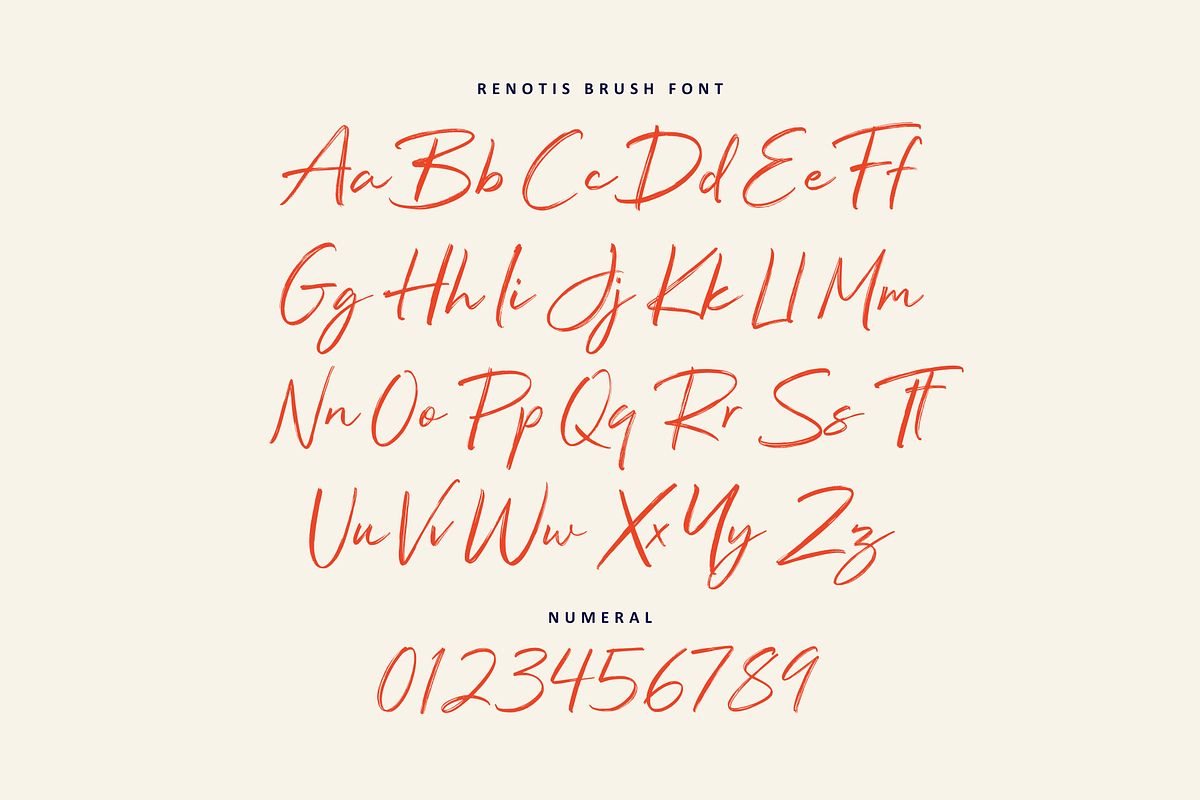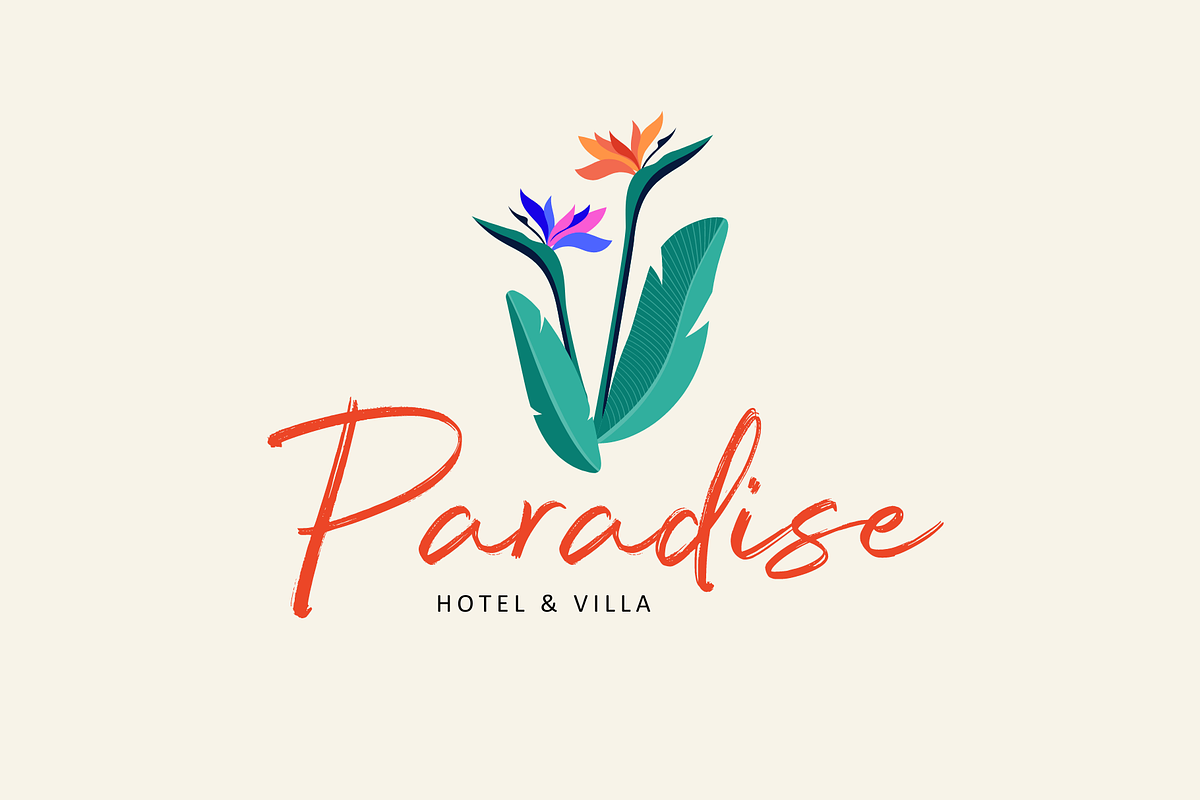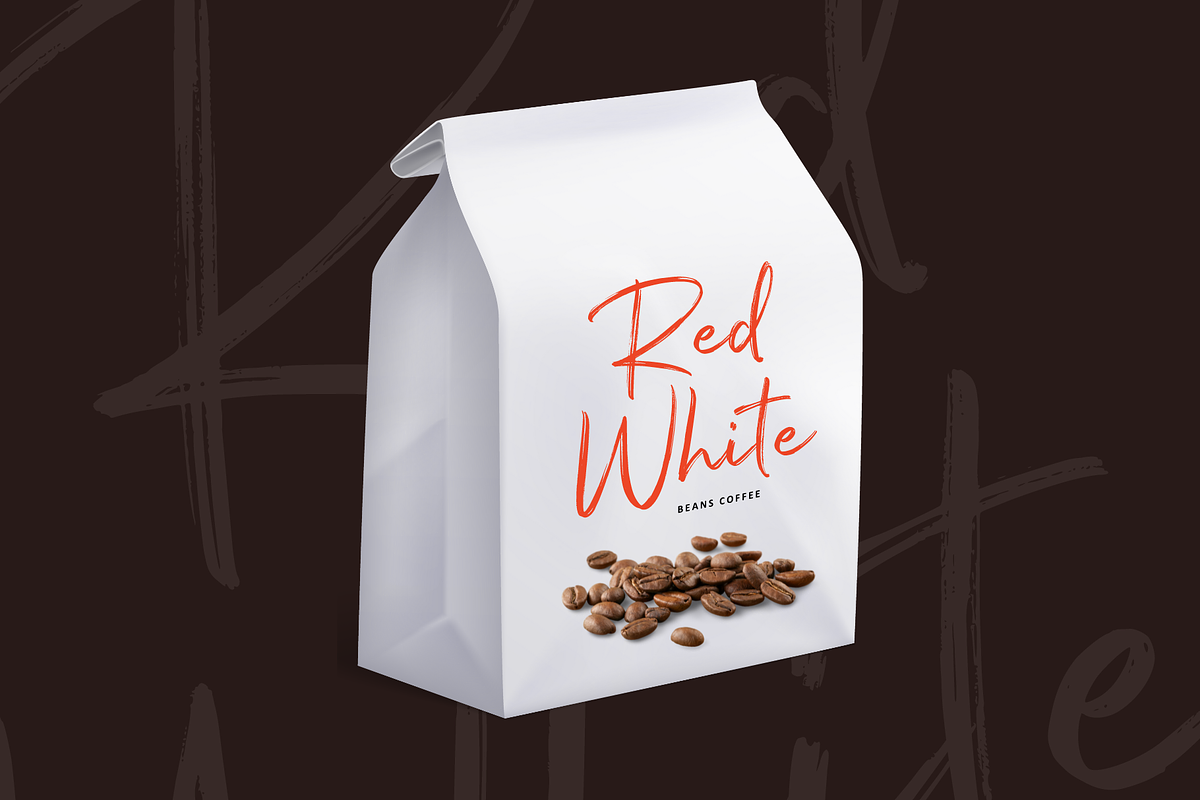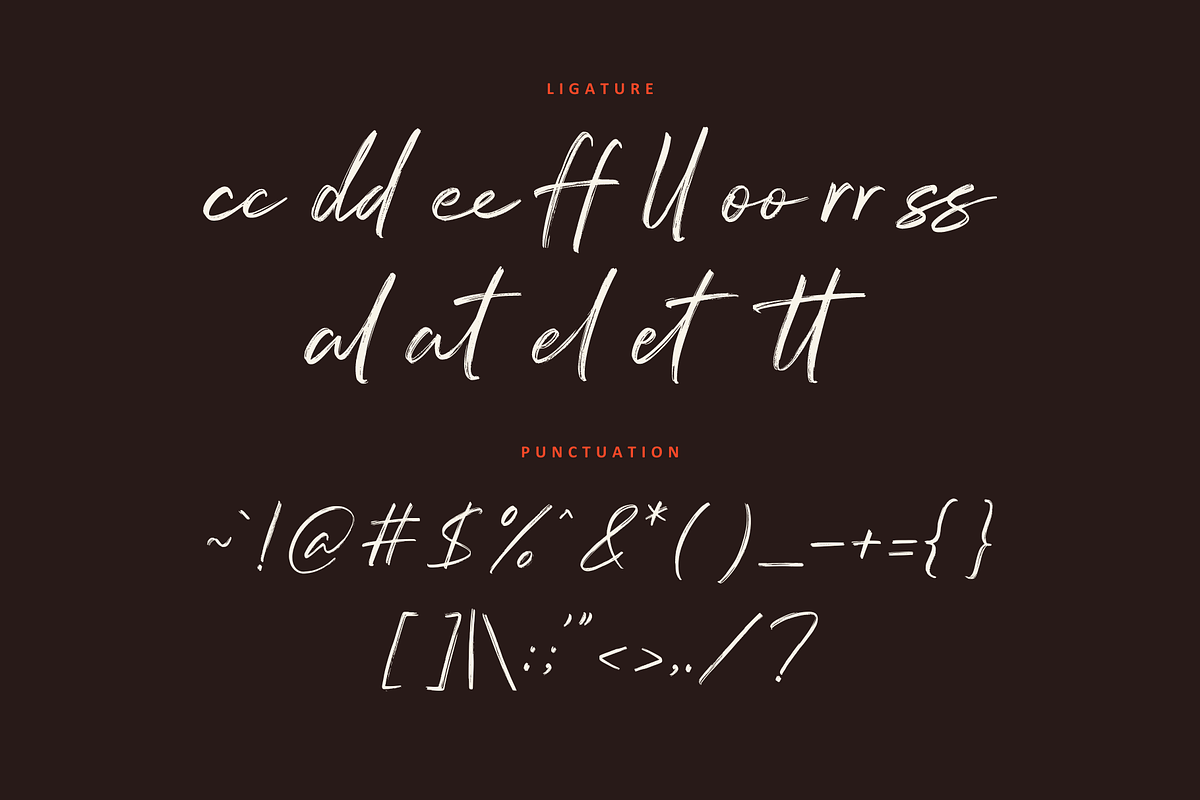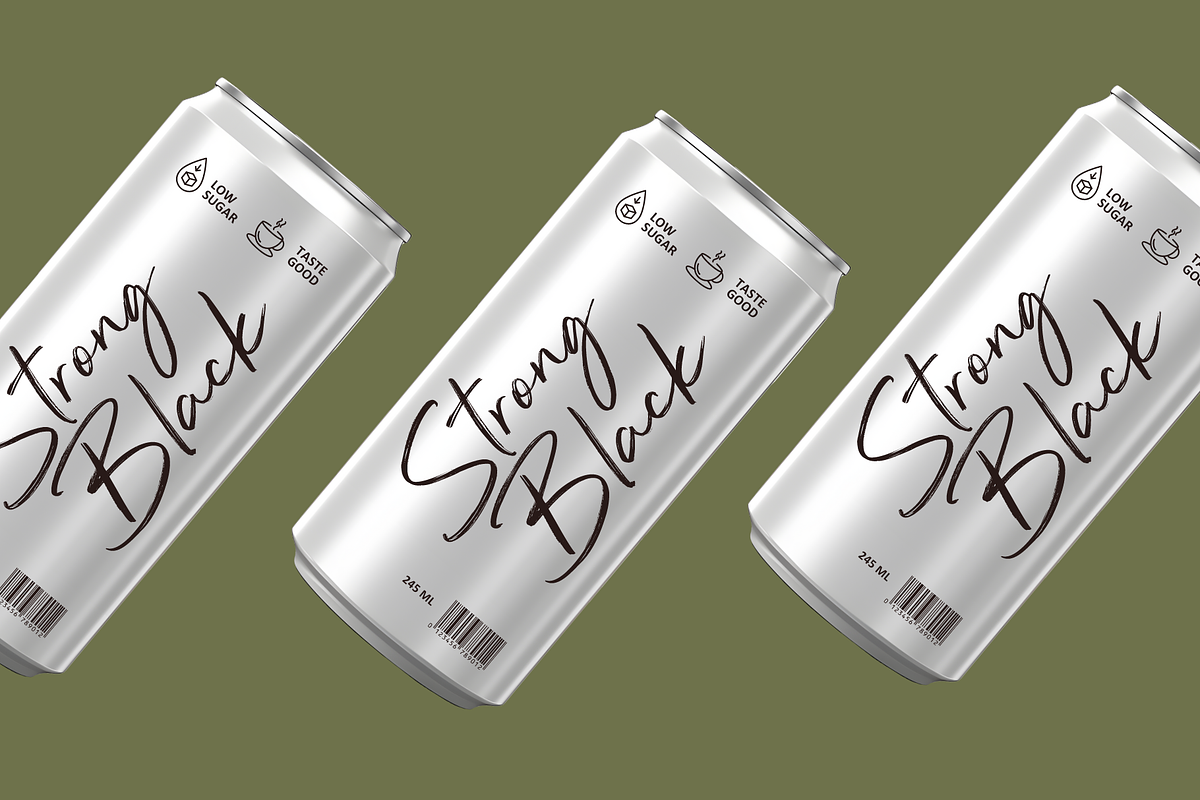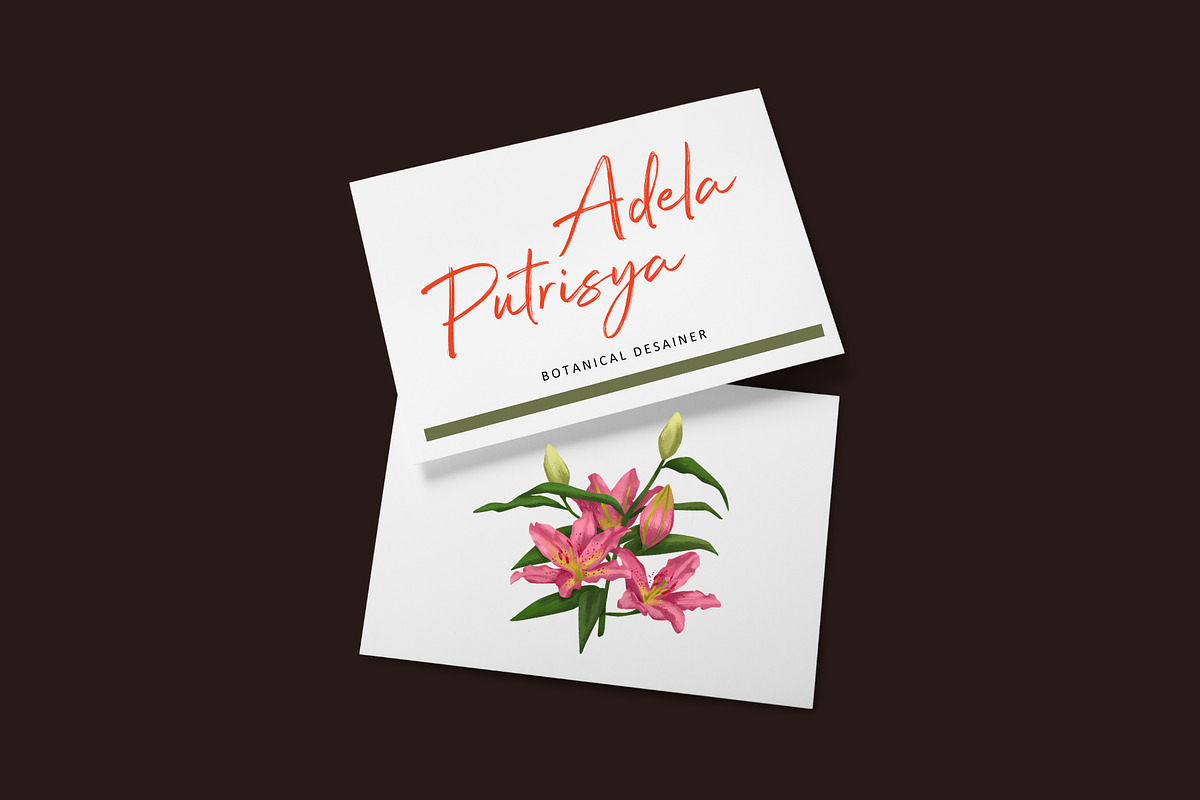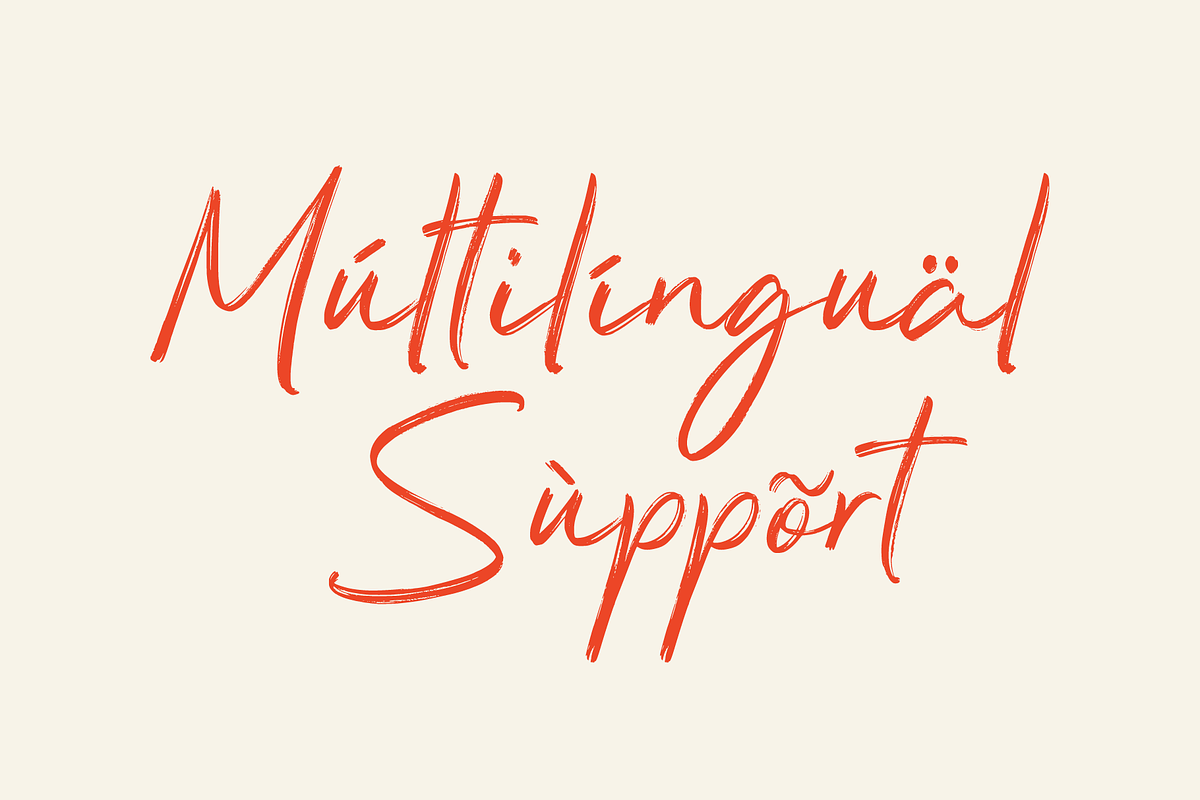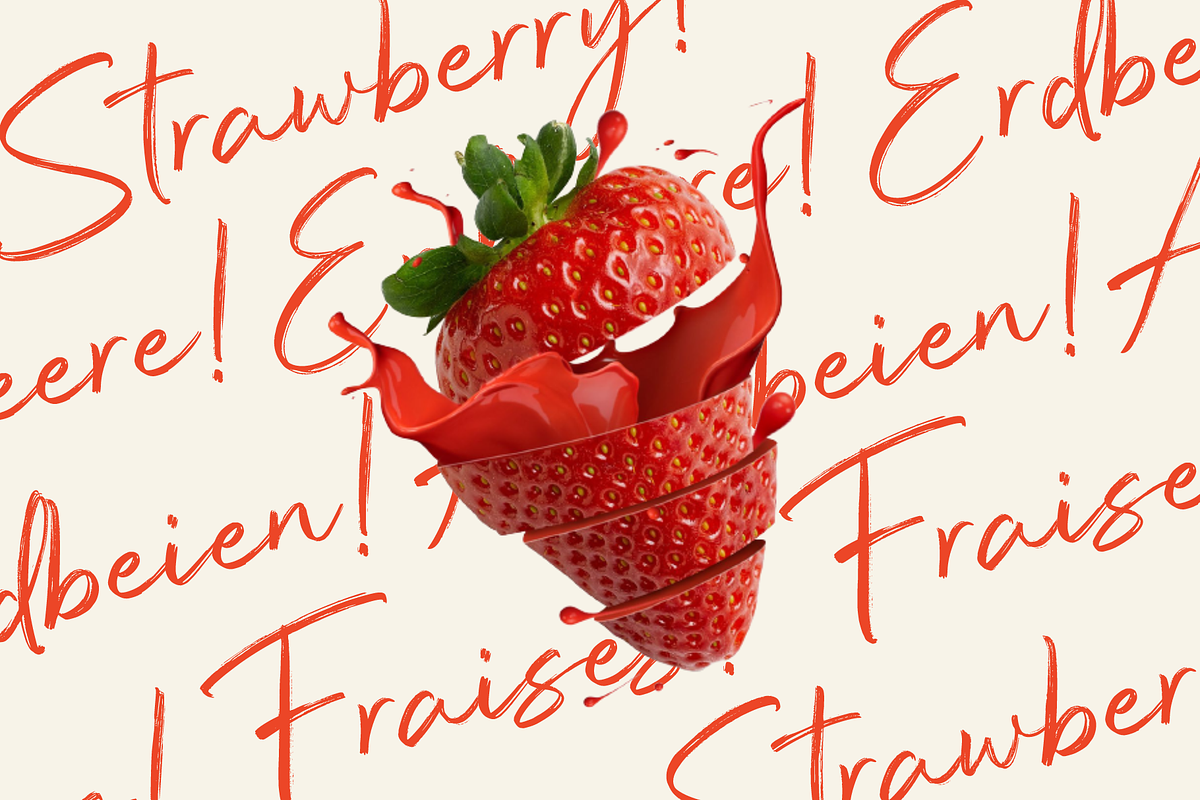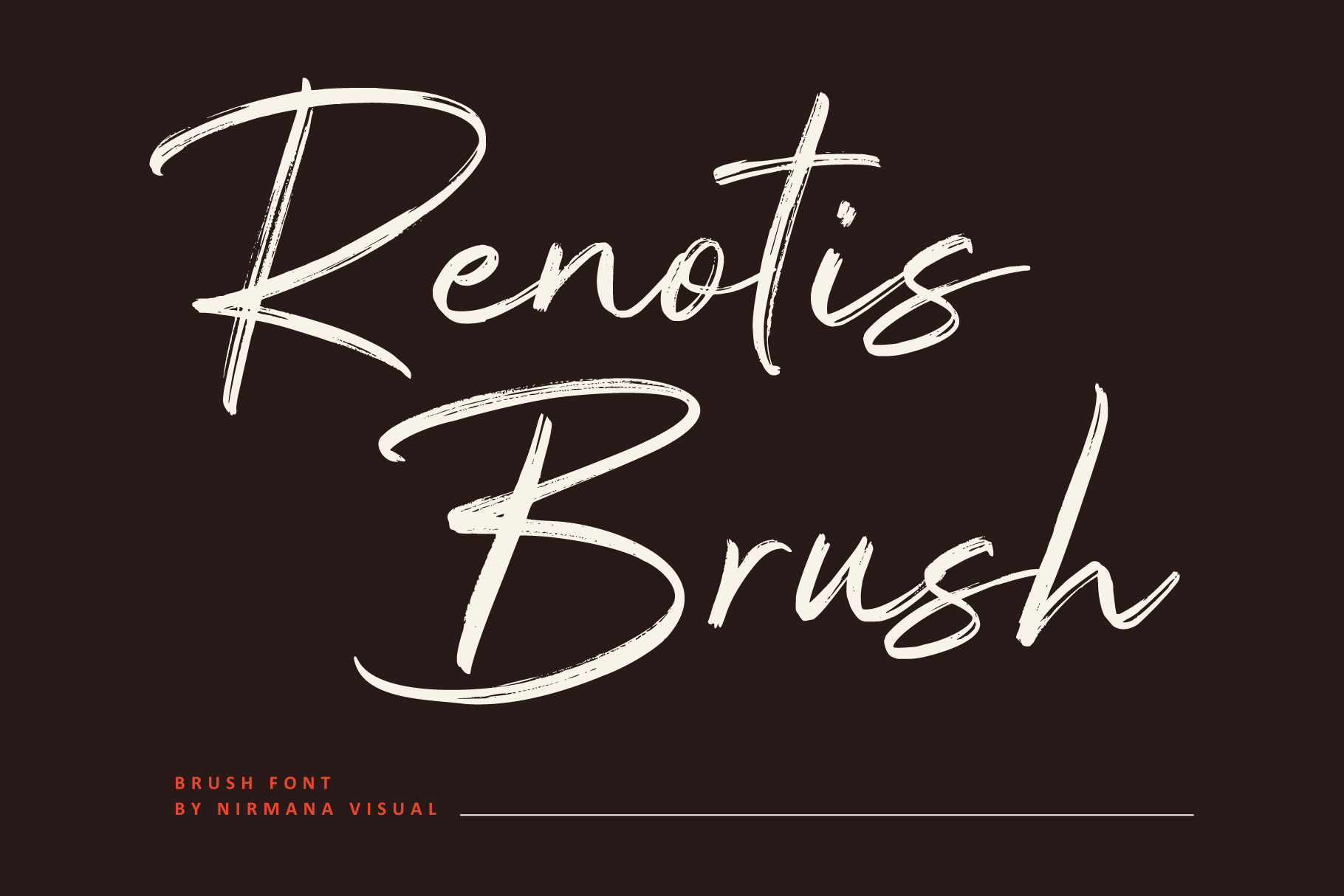
Renotis Brush - Brush Script Font
Renotis Brush - Brush Font
Renotis Brush - Brush Font offers beautiful typographic harmony for a diversity of design projects, including logos & branding, social media posts, advertisements & product designs.